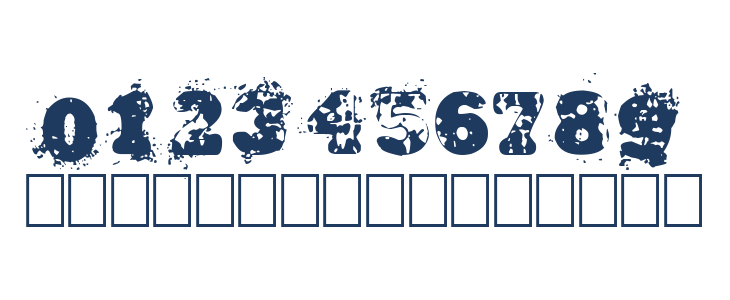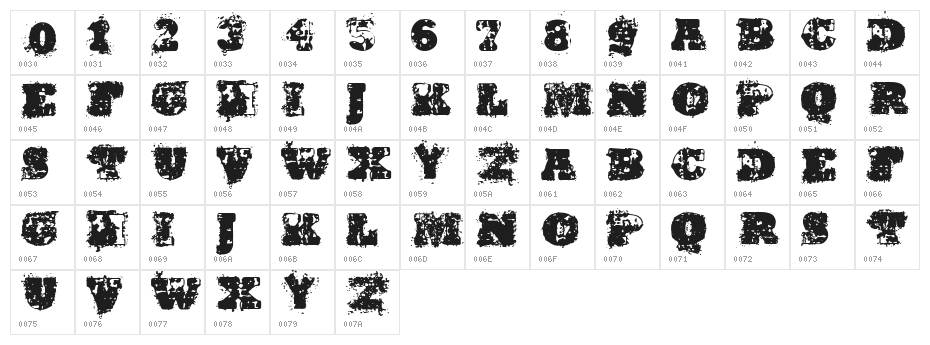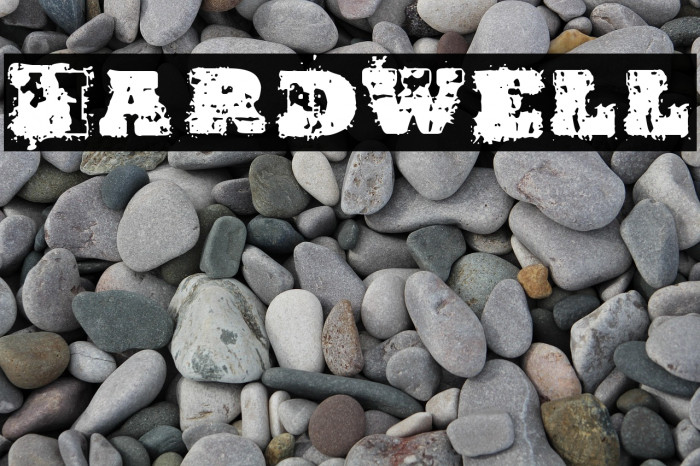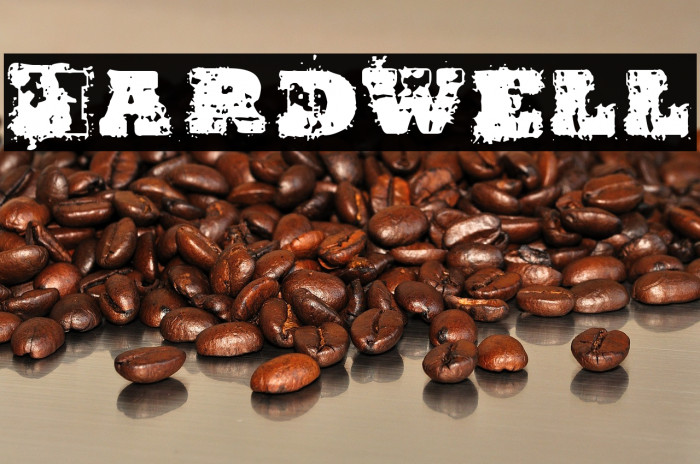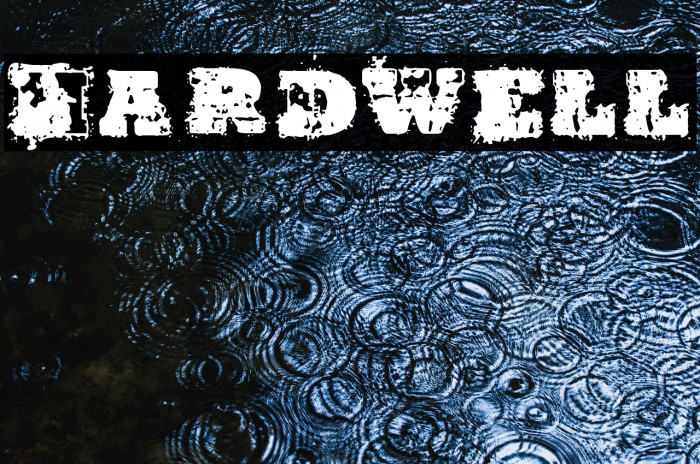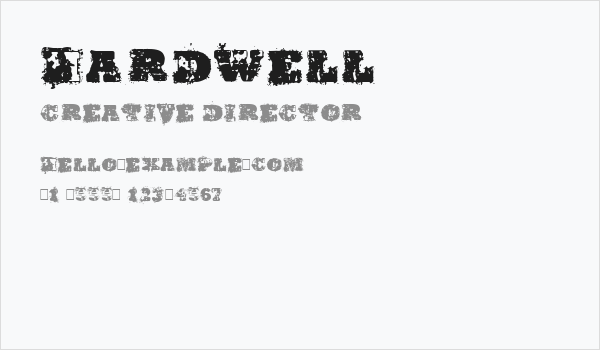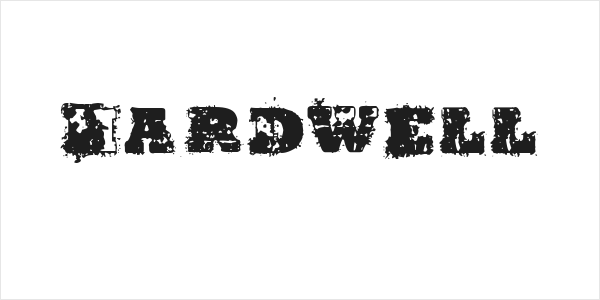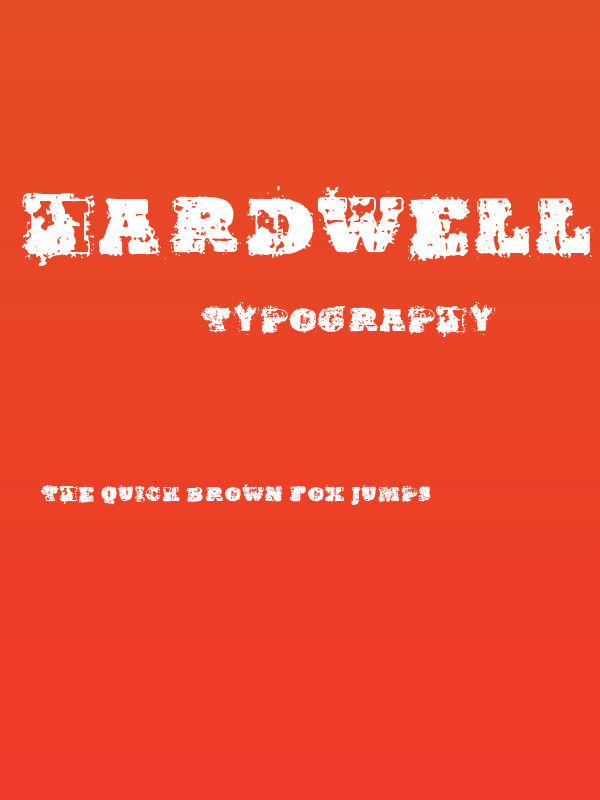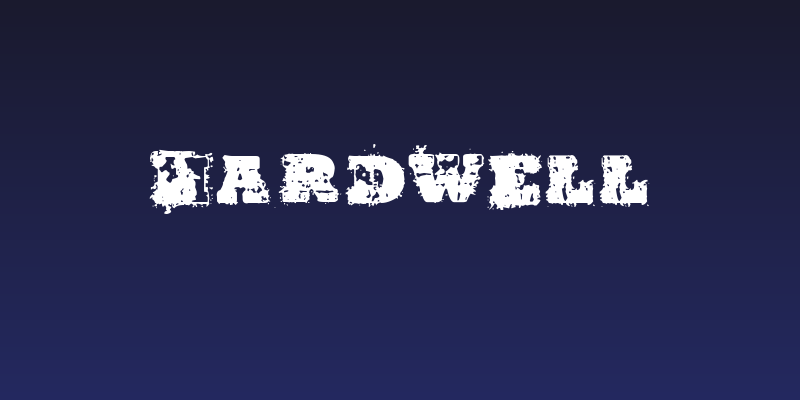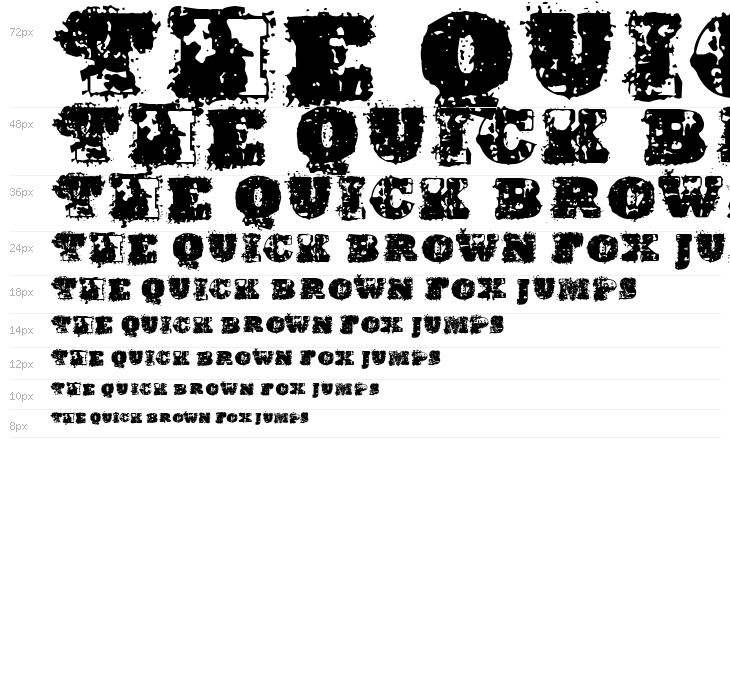
Hardwell Font
Hardwell Description
This font features a distressed, grunge style with a bold and impactful appearance. The characters are heavily textured, giving them a worn and rugged look that suggests a sense of age and weathering. Each letter and number is uniquely distressed, adding to the overall chaotic and artistic feel. The font maintains a consistent weight throughout, with thick strokes that emphasize its boldness. Despite the heavy texture, the characters remain legible, making it suitable for designs that require a strong visual impact.
| Overall Style | Grunge, Distressed |
| Proposed Projects | Ideal for music album covers, event posters, urban-themed designs, and any project needing a gritty, edgy aesthetic. |